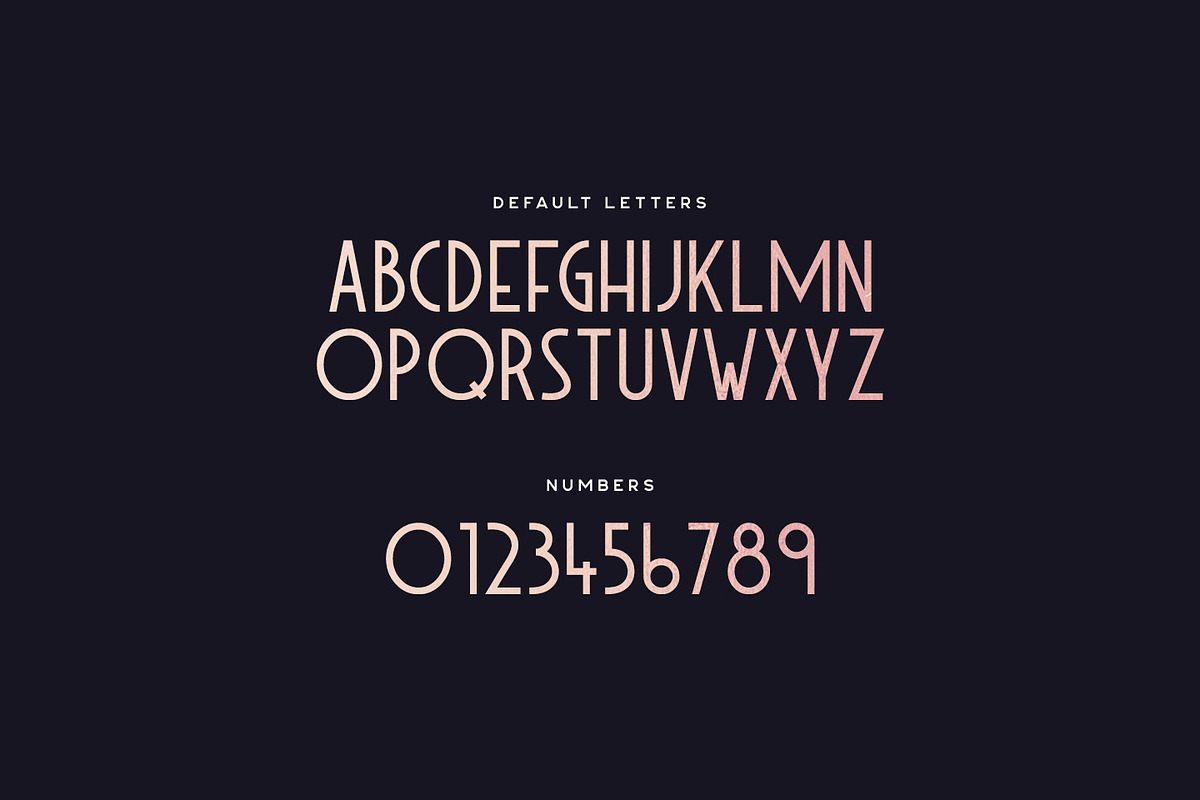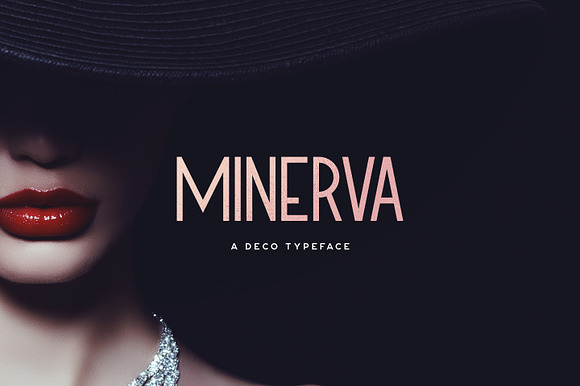
Minerva Typeface
Minerva is an Art Deco themed typeface in two weights. It features a geometric design and has some alternate letters which can be toggled via caps lock.
- The font includes multilingual letters, numbers and punctuation.
- It features a geometric design and has some alternate letters which can be toggled via caps lock.
- The font includes multilingual letters, numbers and punctuation.
Why Minerva Typeface is worth a look
Minerva Typeface by Tugcu Design Co. fits naturally into Branding, posters, packaging, typography.